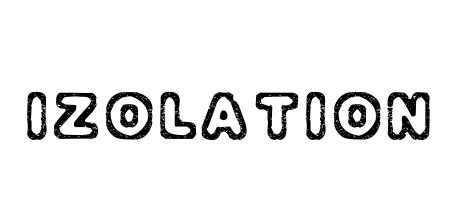
Izolation
Izolation boasts a bold, slightly distressed sans-serif design. Each letter is outlined with a thick, stark black stroke, creating a sense of weight and a retro, almost hand-drawn feel. The consistent line thickness and uniform letter spacing contribute to a clean, impactful aesthetic. The overall style hints at a slightly grunge or vintage vibe, suitable for projects needing a touch of rebellious character.